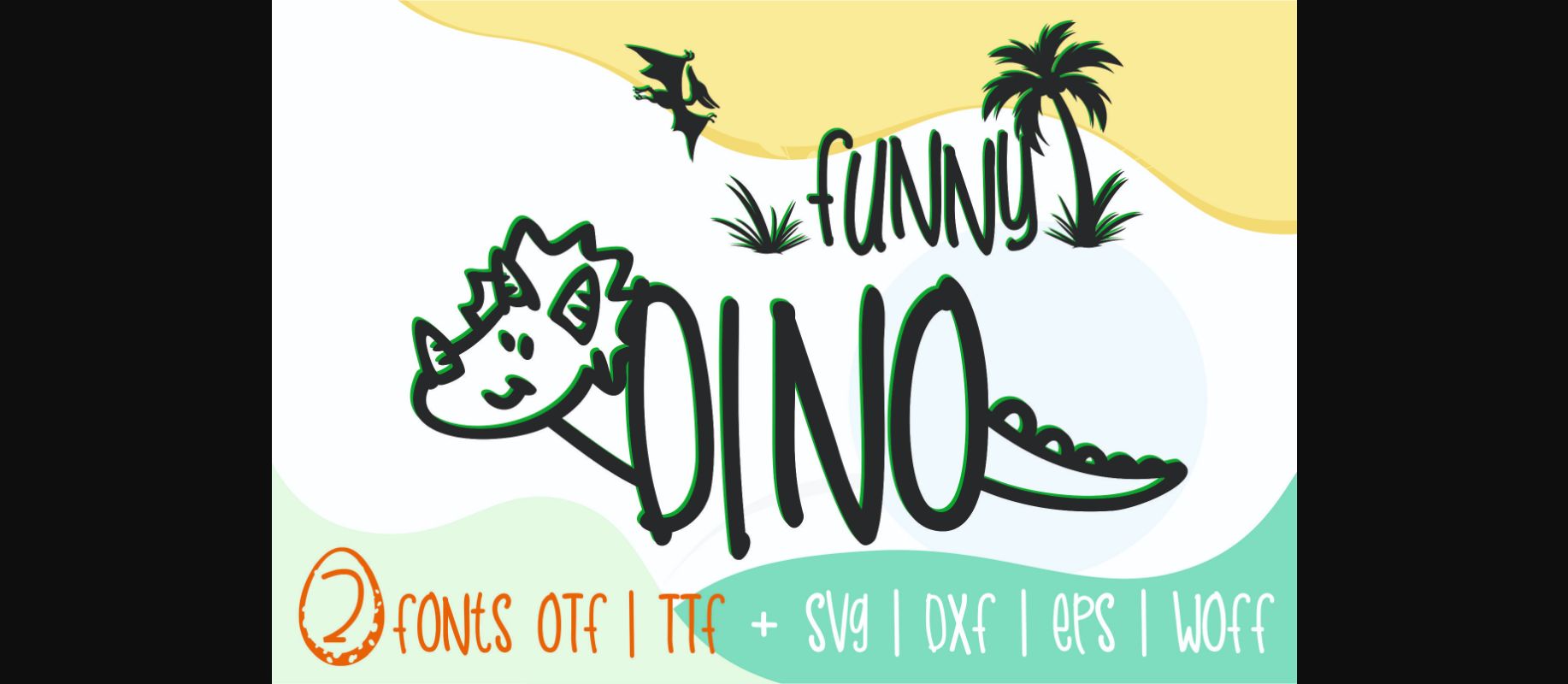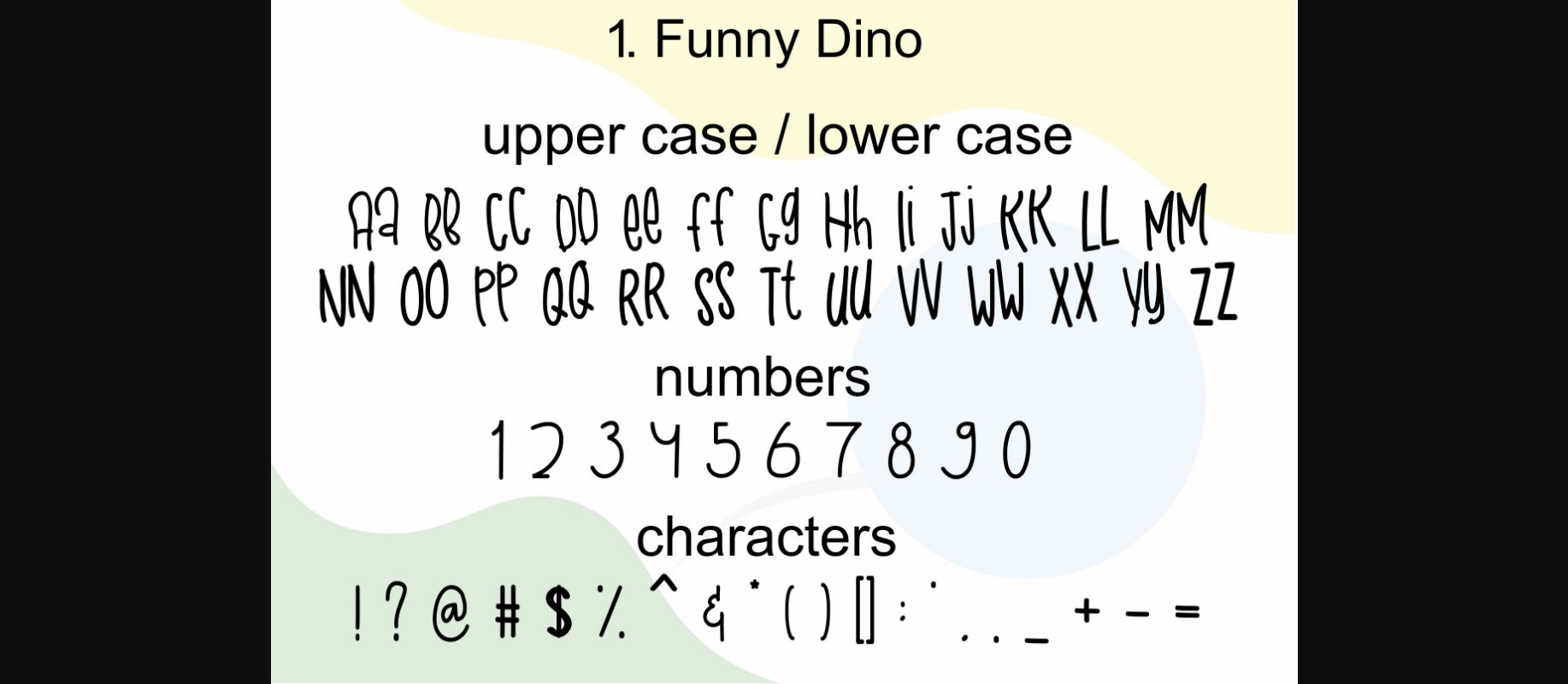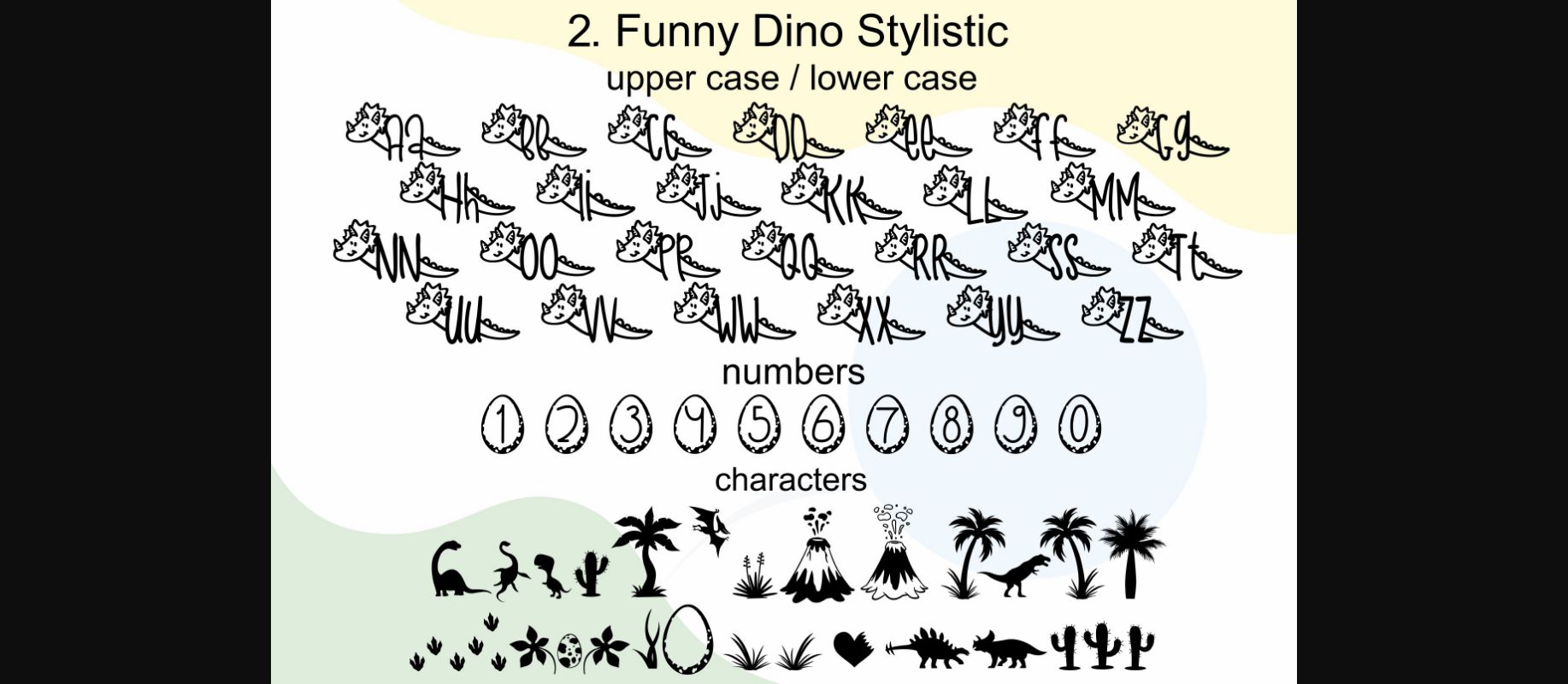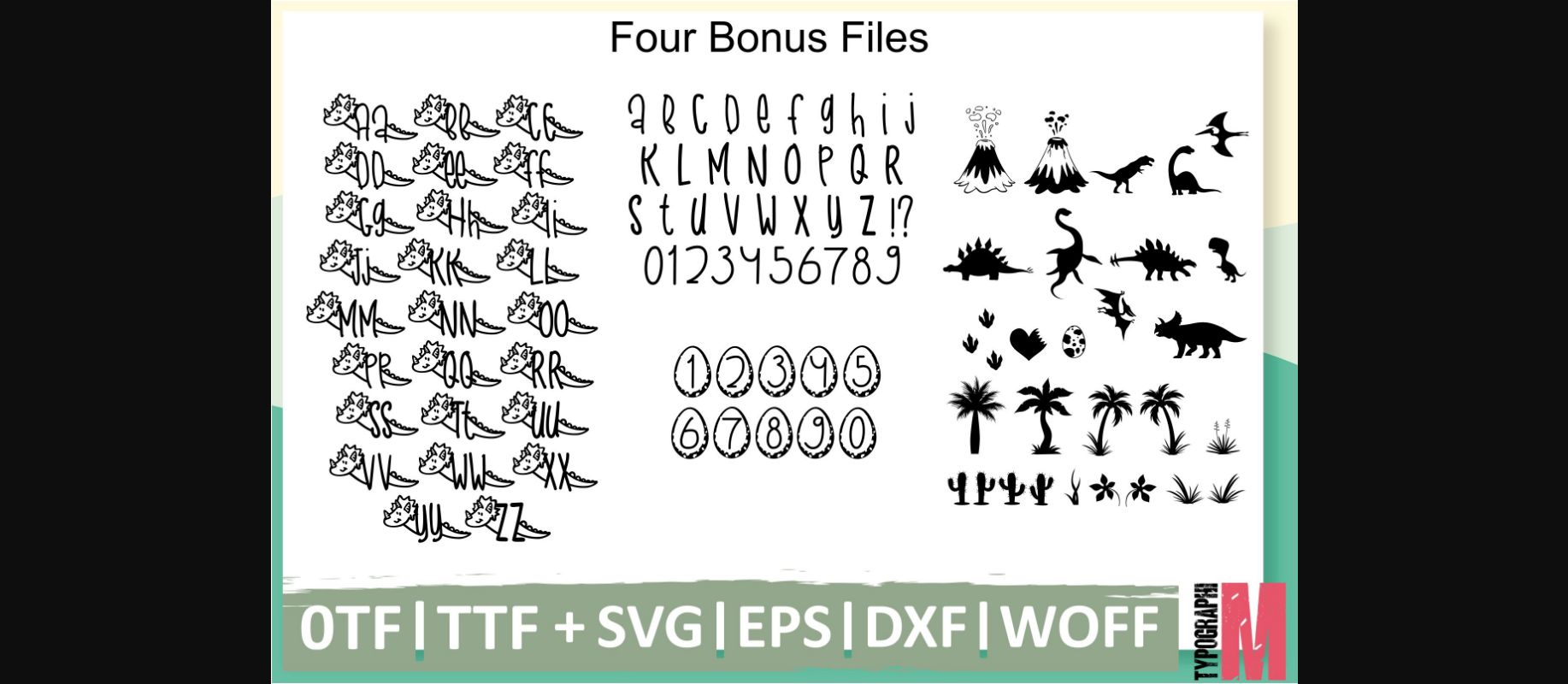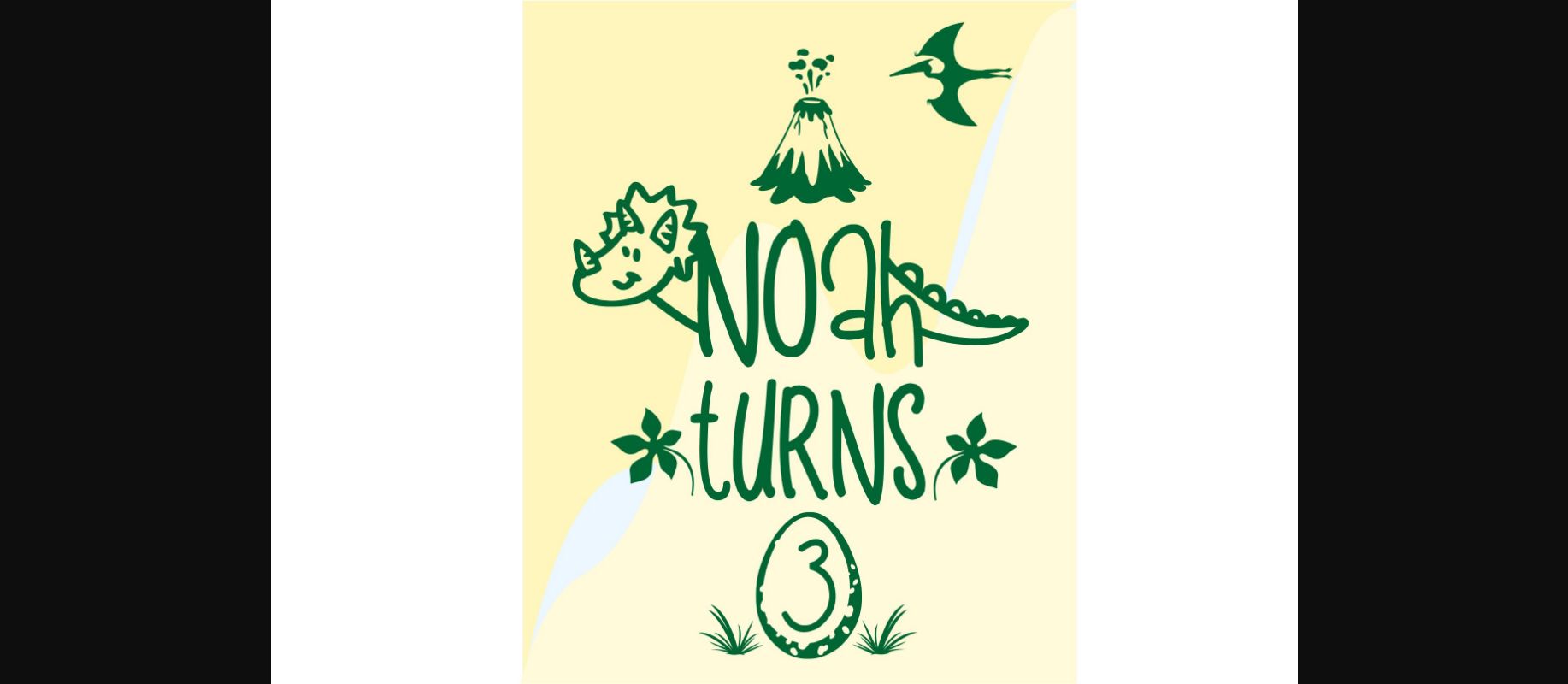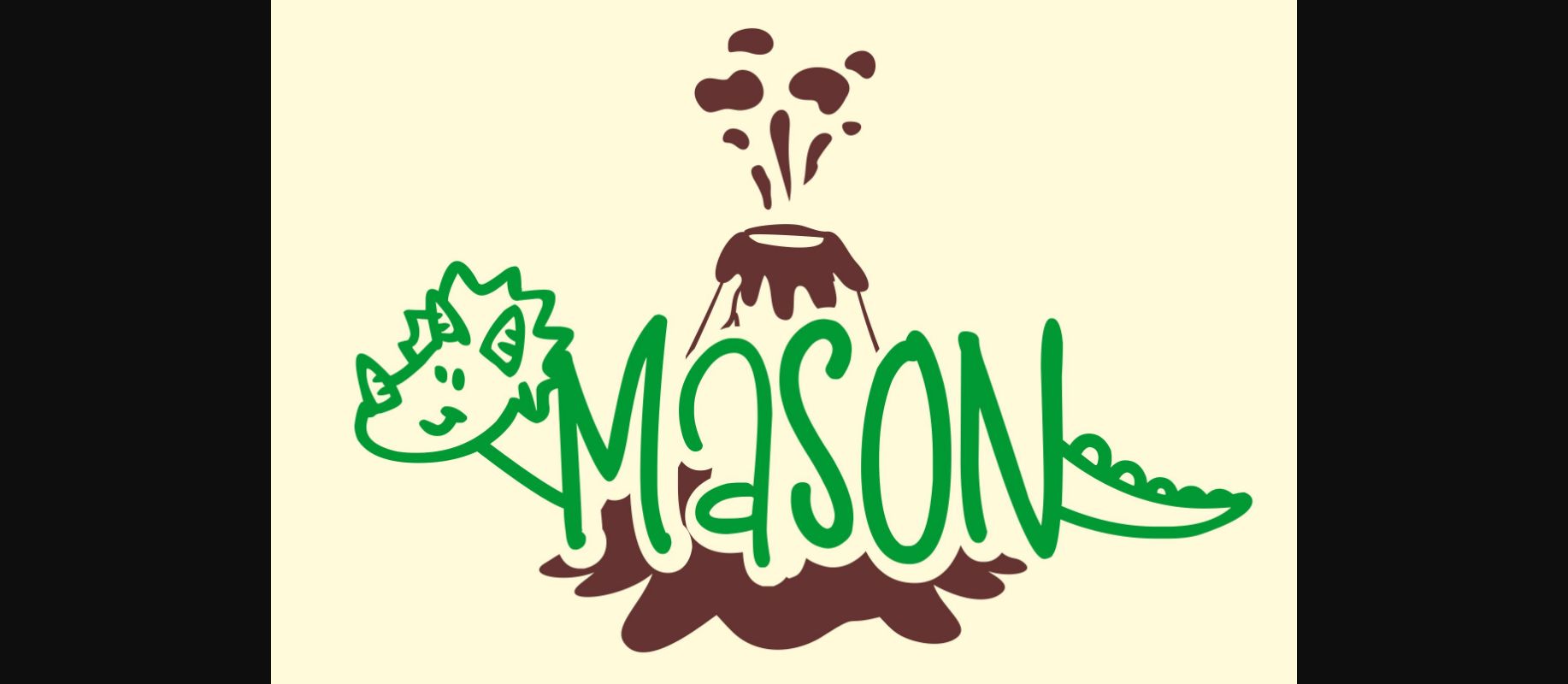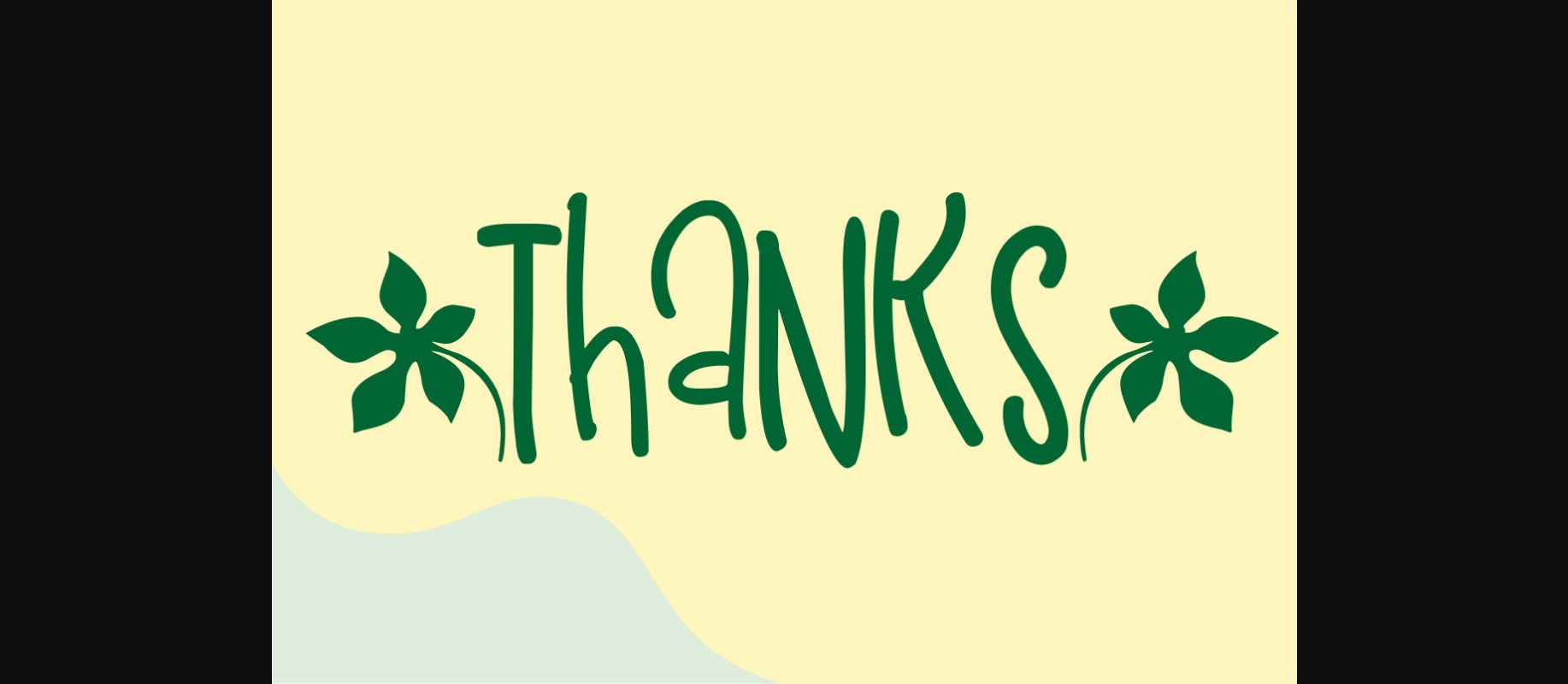
Funny Dino is a decorative font. It features cute and funny dinovectors bonus files. Get creative with its childlike playfulness, and use it to brighten up any kids and school project!